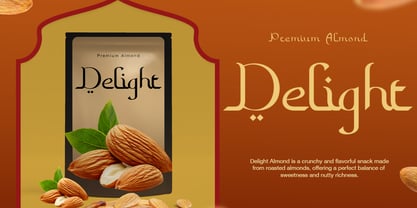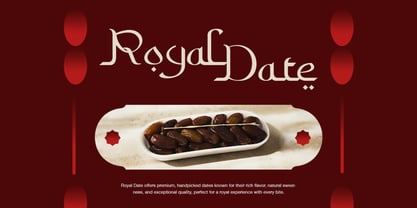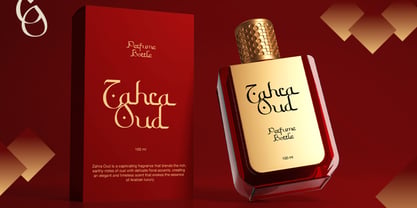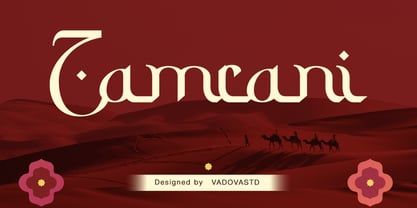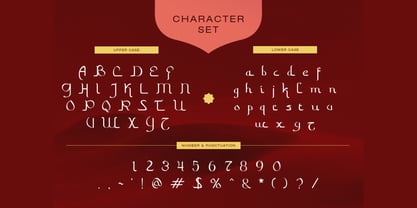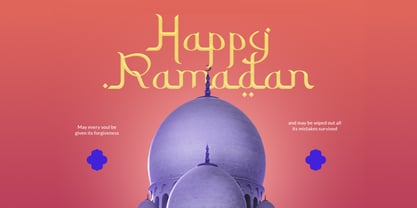
Zamrani
by Vadova Std
Zamrani is a decorative display typeface inspired by Middle Eastern calligraphic elegance and desert aesthetics. Designed with flowing curves, ornamental terminals, and subtle cultural detailing, this font blends traditional Islamic art influence with a modern display structure. Zamrani is highly relevant for Ramadan campaigns, Eid promotions, Islamic events, halal product packaging, Middle Eastern restaurant branding, travel advertisements, cultural exhibitions, editorial covers, and luxury perfume branding.